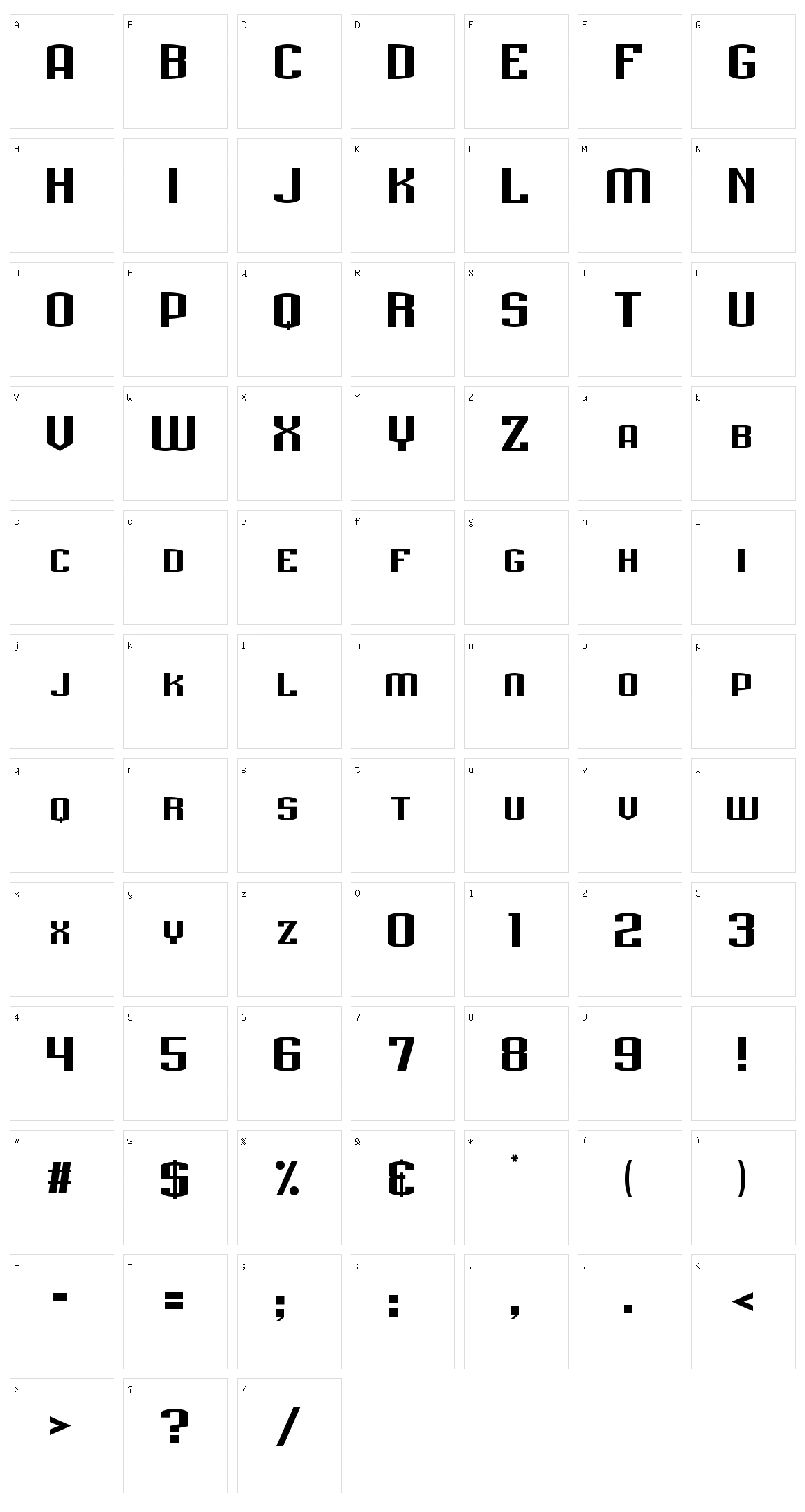
The free font Metriqs is carefully designed by Heart & Hand Designs, showcasing a thoughtful balance of creativity and usability and belongs to the Techno font family. When you download the ZIP file, it contains only 5.61 KB of font files, making it lightweight and quick to download. Please review the license details below to understand permitted usage and distribution rights. If license information is not available, we recommend using this font for personal projects only or contacting the author directly for commercial usage permissions.